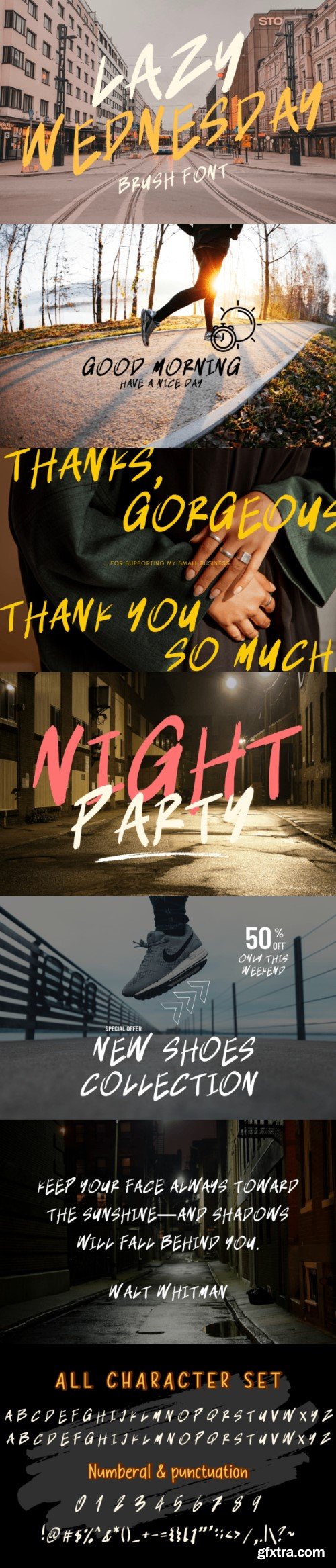
懒周三字体
Lazy Wednesday is a brush font. It embodies playfulness and authenticity and is the perfect choice for all your favorite projects, or even for blog posts, logos, branding, ads, invitations, greeting cards, planners, photo albums, decorations, and much more. Add it to any of your designs, and enjoy the results!